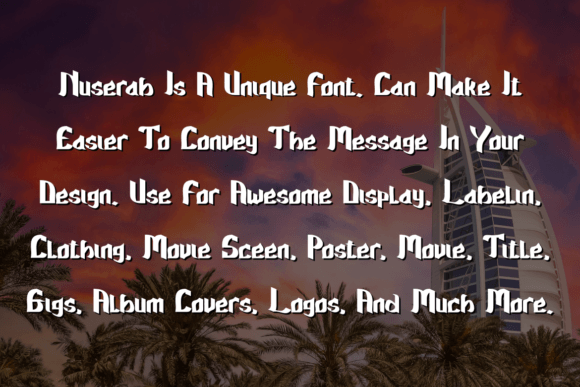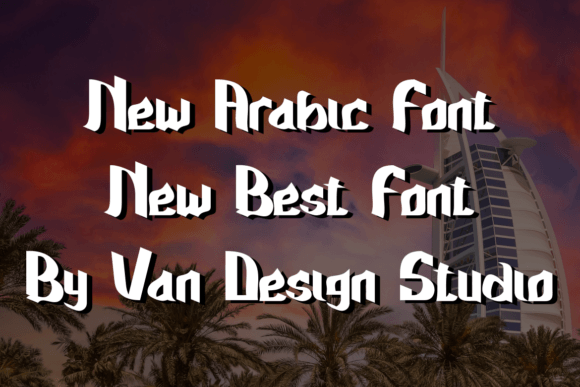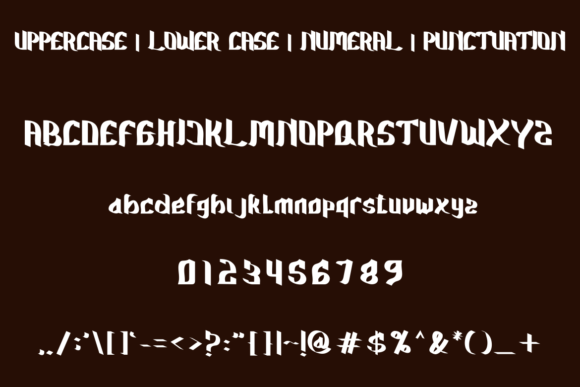
Introduction to Nuserab Font
Imagine you’re brainstorming ideas for your next creative project, and suddenly, the perfect font pops into your head. For designers, finding that elusive font can make all the difference between a mediocre design and a truly eye-catching one. That’s where the Nuserab Font comes in – a unique and versatile font that can elevate your work to the next level.
Whether you’re working on a movie poster, album cover, or gig flyer, the Nuserab Font is an excellent choice. Its high-quality design and transparent background make it perfect for displaying your creative vision. With its uppercase and lowercase letters, numbers, and punctuation, this font is incredibly versatile and can be used for a wide range of design projects.
Key Features of Nuserab Font
- High-quality font suitable for creative projects and design resources.
- Features a unique, artistic design with a transparent background, allowing for versatile use in various creative projects.
- Includes a large character set, making it suitable for use in various languages and creative applications.
- Designed to be highly legible at various resolutions, from 72 dpi to 300 dpi, making it suitable for both digital and print use.
Honest Review: Nuserab Font
I recently had the chance to work with the Nuserab Font on a creative project, and I must say, I was quite impressed. The font’s unique design and high quality made it a great addition to our branding materials.
- High-quality design: The Nuserab Font is well-crafted, with clean lines and a professional look.
- Transparent background: This allows for seamless integration with any background image or color.
- ⚠️ Limited font weights: The Nuserab Font only comes in a few font weights, which can be a limitation for designers who need more flexibility.
- ⚠️ Limited language support: The font may not support all languages, which can be a problem for international projects.
Overall, the Nuserab Font is a great design resource for creative projects. While it has some limitations, its high quality and unique design make it a valuable addition to any designer’s toolkit. If you’re looking for a free font that’s perfect for branding materials, the Nuserab Font is definitely worth checking out.
When using the Nuserab Font, be sure to experiment with different font sizes and styles to get the most out of it. You can also use the font in combination with other design elements, such as images and graphics, to create a unique and eye-catching design.
The Nuserab Font is perfect for a range of creative projects, including social media graphics, presentations, and reports. It’s also great for adding a touch of elegance to your design, making it perfect for wedding invitations, business cards, and other formal documents.